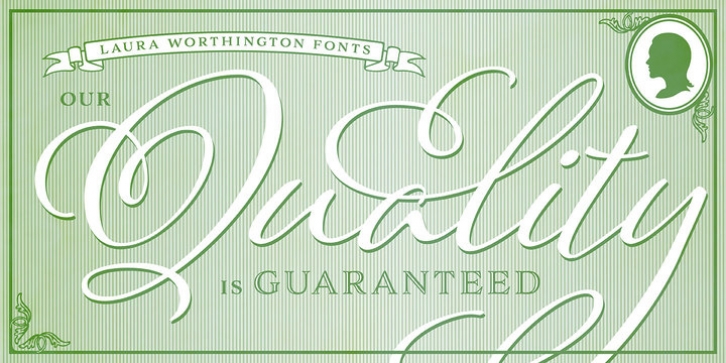
Like the original Adorn family on which it’s based, Adorn Smooth provides a suite of distinctive typeface designs designed to complement each other rather than match exactly. Adorn Smooth revisits 6 faces from Adorn — Pomander, Serif, Slab Serif, Engraved, Condensed, and script Catchwords; plus ornaments, banners, and frames — in smooth, untextured versions.
As with Adorn, Adorn Smooth provides a disparate but harmonious typographic toolkit for creating wedding invitations, event posters, book jackets, or packaging.